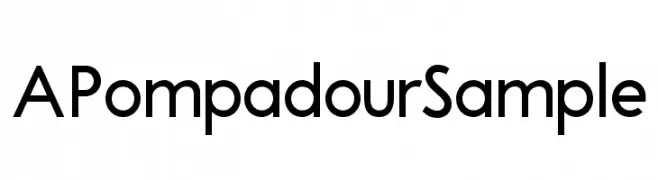
( Andhi Yulianto - creativemarket.com/great19 )
A bold, slanted font with dynamic and energetic letterforms.
( Athmercl )
A clean, handwritten-style font with rounded edges and consistent strokes.
( Alex Patin - www.alexpatin.com )
A playful, handwritten font with a casual and approachable style.
( Ana - www.anasfonts.com/ )
A bold, modern font with clean lines and a strong presence.
( Ana - www.anasfonts.com/ )
A modern, geometric sans-serif font with clean lines and balanced proportions.
( Antipixel - Julia Martínez Diana - www.antipixel.com.ar/ )
A slender, condensed, and light font with an elegant and minimalistic design.
( Antipixel - Julia Martínez Diana - www.antipixel.com.ar/ )
A delicate, condensed, and light italic font with a graceful and dynamic appearance.
( Antipixel - Julia Martínez Diana - www.antipixel.com.ar/ )
A modern, ultra-condensed font with tall, narrow characters and consistent stroke width.
( Antipixel - Julia Martínez Diana - www.antipixel.com.ar/ )
A sleek, ultra-condensed italic font with a modern and dynamic style.
( Antipixel - Julia Martínez Diana - www.antipixel.com.ar/ )
A slender, condensed font with thin, consistent strokes and a minimalistic design.